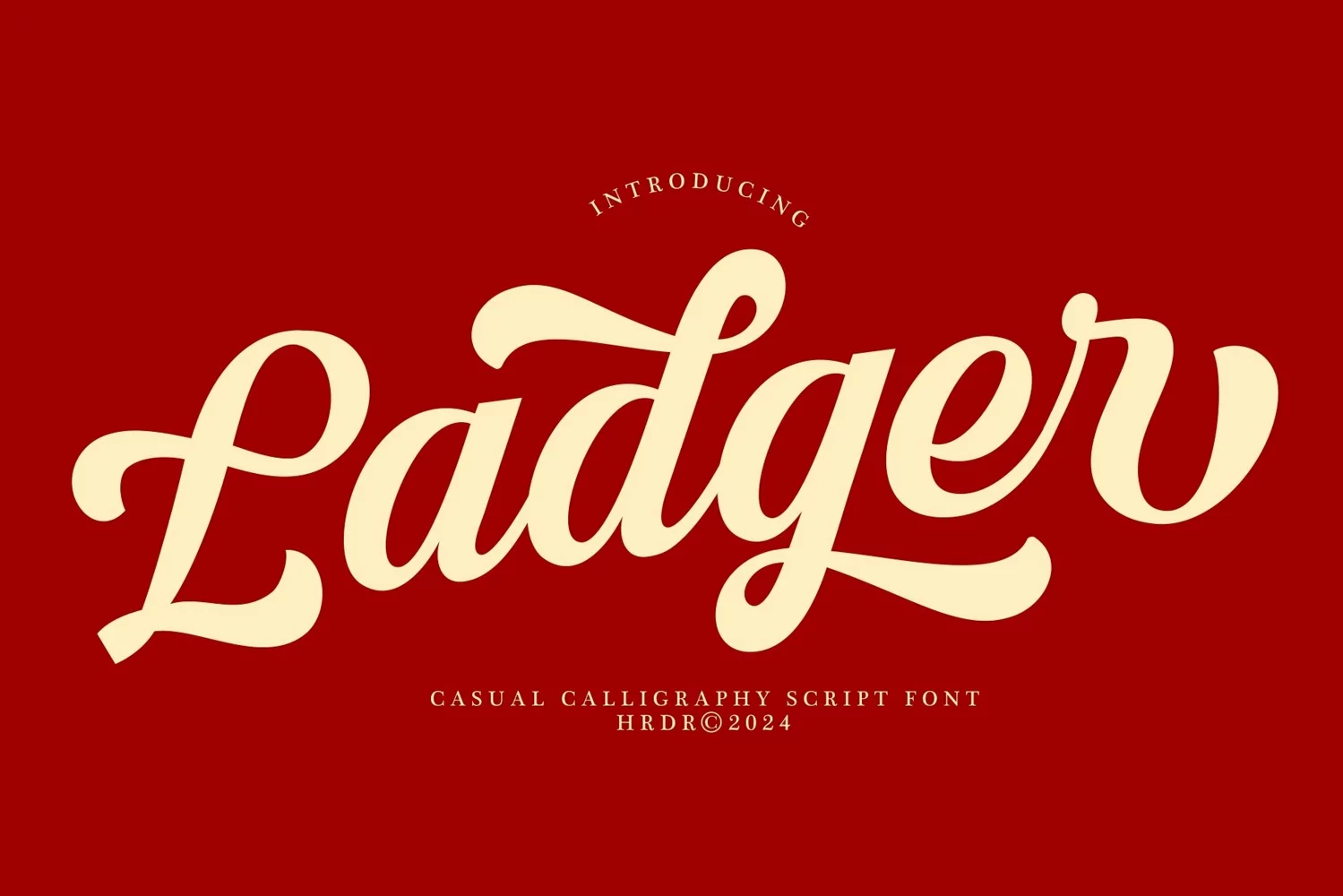
Ladger Font is a Casual Calligraphy Script font.
Font Features :
- numeric & Multilingual support
- Stylistic Alternates with (Ss01,Ss02,Ss03 and Ligatures)